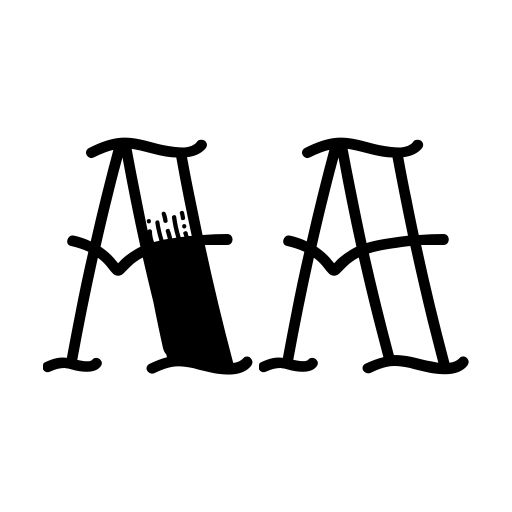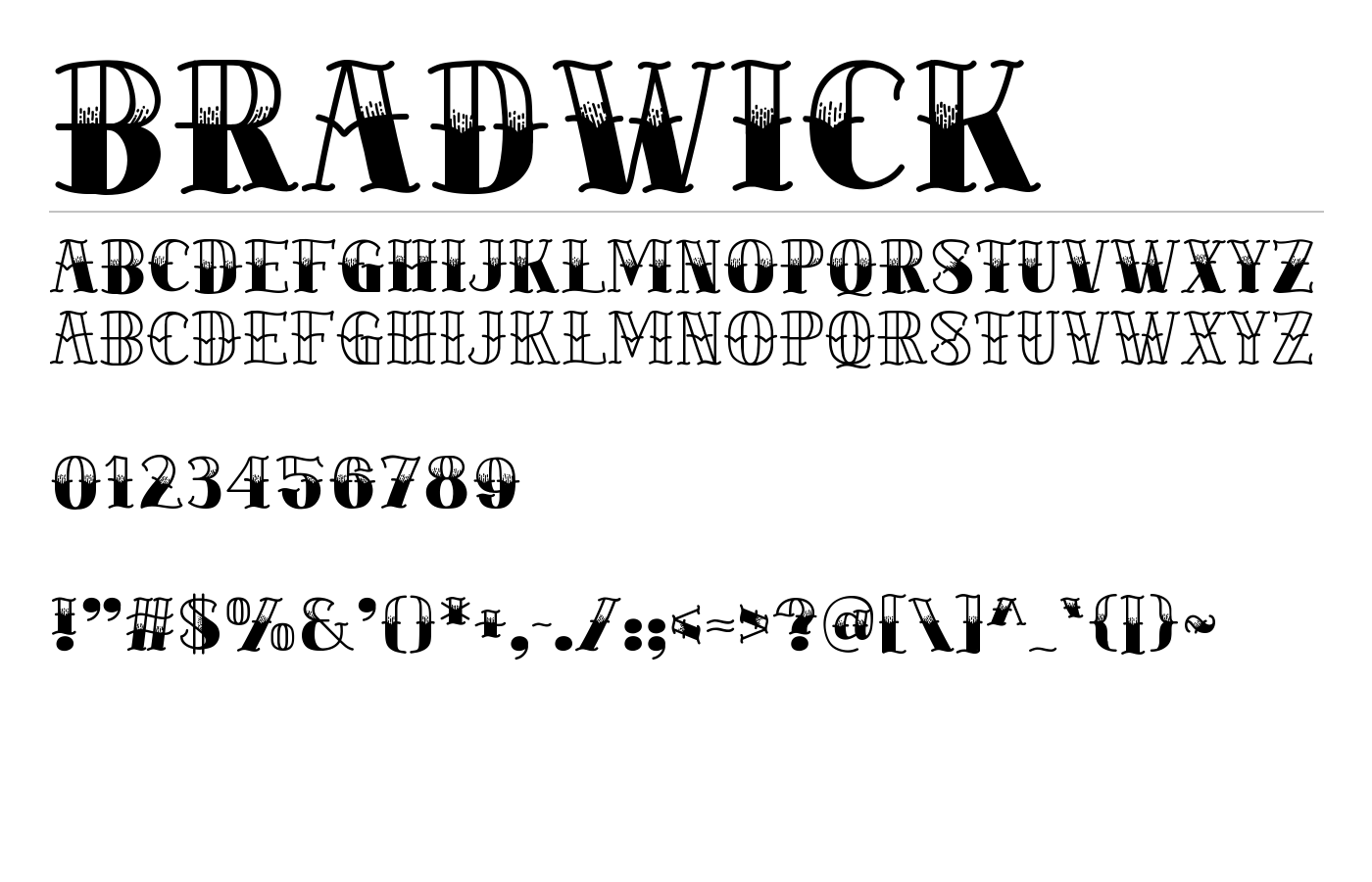
Bradwick is a bold, decorative serif font with a vintage Western feel, characterized by its strong, bracketed serifs and high contrast between thick and thin strokes. Its unique distressed texture and quirky letterforms make it perfect for eye-catching headlines, logos, and branding that aim to evoke a rustic, adventurous, or old-fashioned charm. This font works especially well in poster design and packaging where a bold, playful yet classic personality is desired.
BRADWICK Font
About BRADWICK Font
| Designer | Sahirul Puguh |